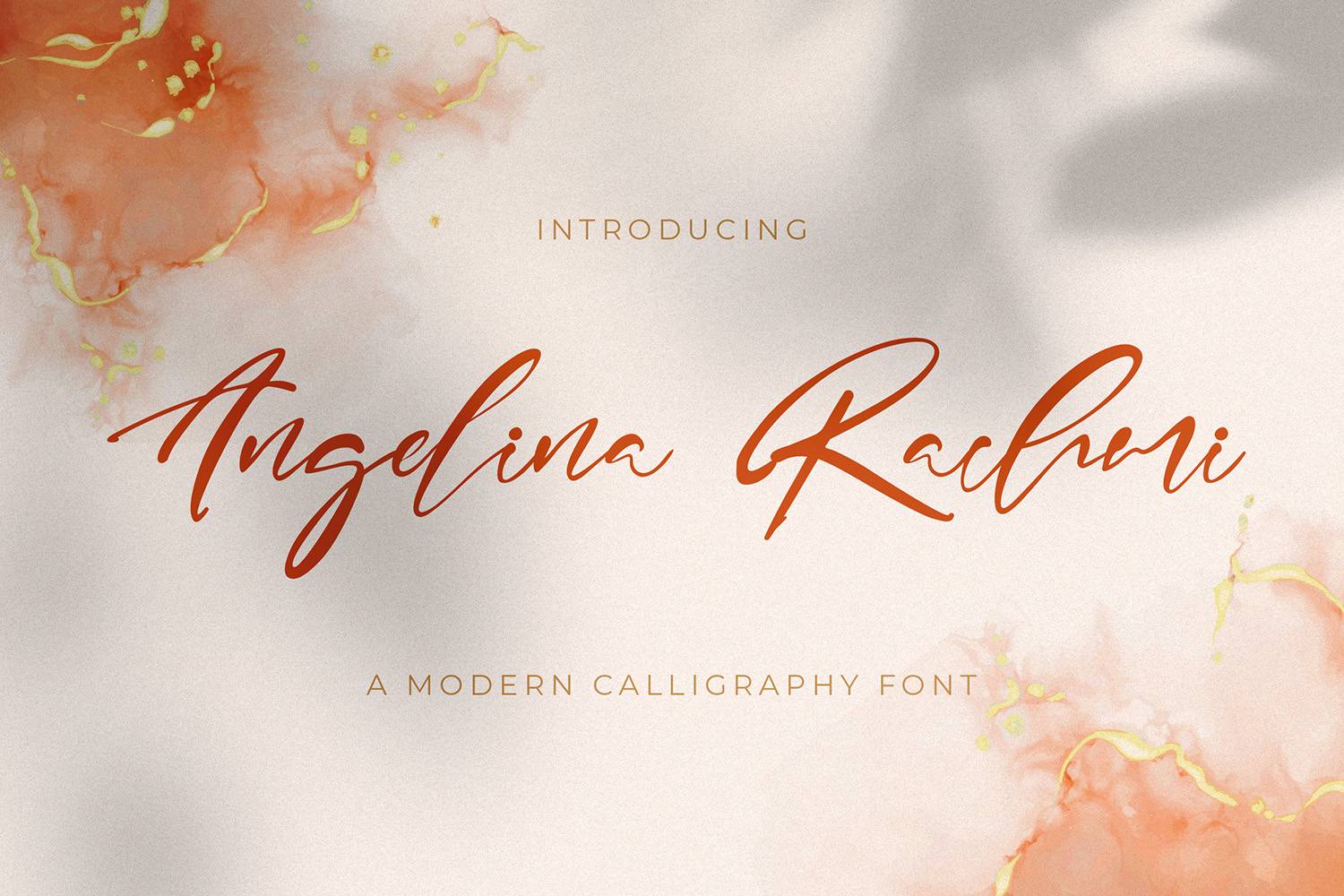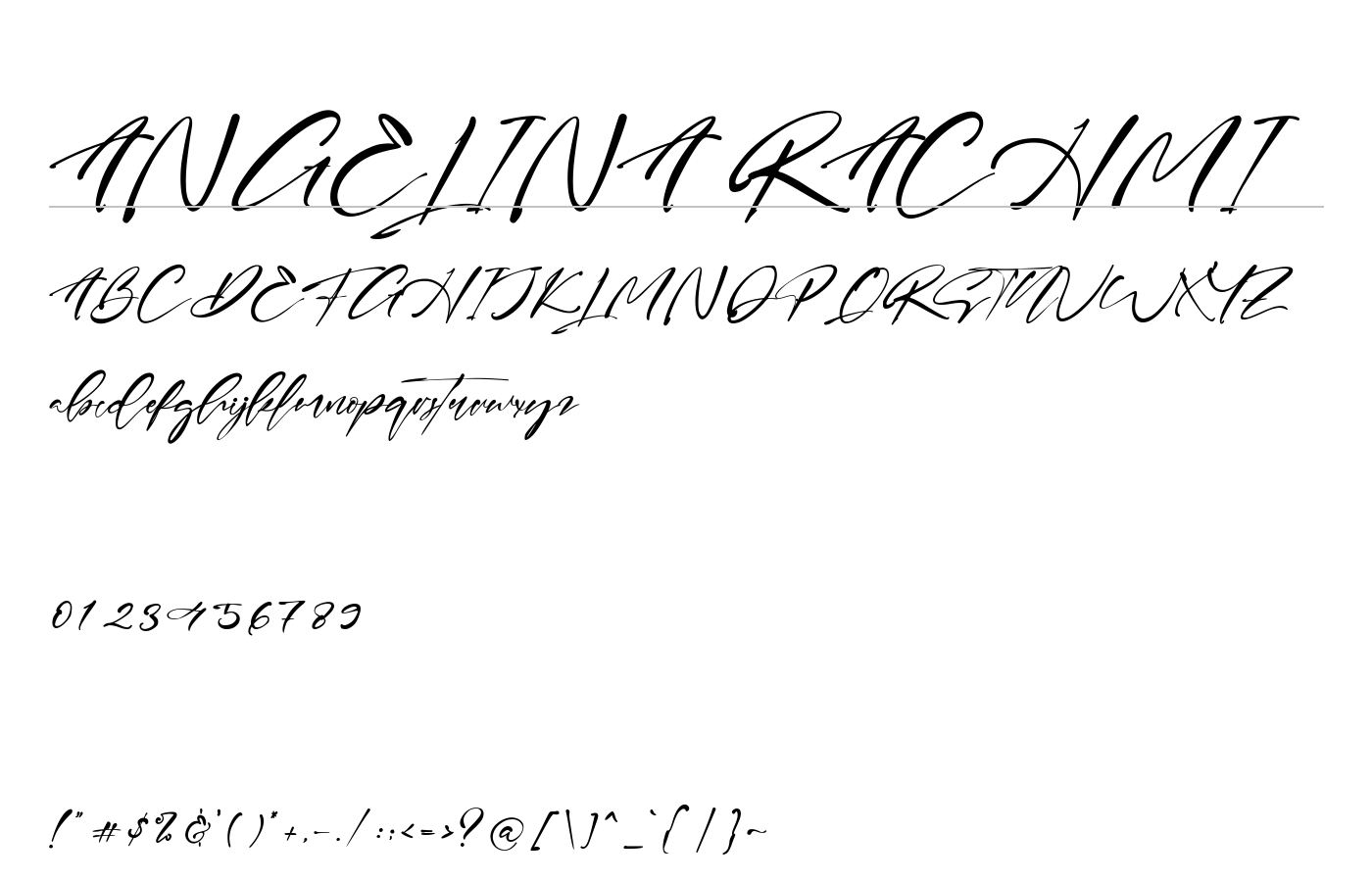
Angelina Rachmi is an elegant script font characterized by its flowing, calligraphic strokes and distinctive high-contrast lines. Its slender, handwritten style conveys a sophisticated and artistic vibe, making it perfect for luxury branding, wedding invitations, and stylish editorial headers. This font shines best in decorative contexts where its graceful and expressive nature can truly stand out.
Angelina Rachmi Font
About Angelina Rachmi Font